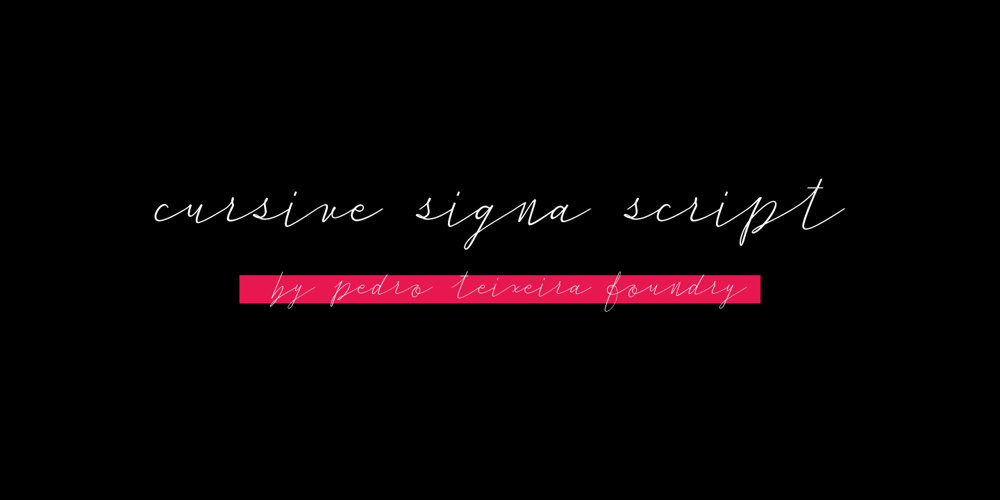
Cursive Signa Script Font Family was designed by Pedro Teixeira and published by Pedro Teixeira. Cursive Signa Script contains 30 styles and family package options. One of the rare, huge script, true cursive and signature family. It has 30 styles, that range between weight and slant, and with alternates.It can be use in a lot of projects, like logos, end of a statement, pairing with a beautiful sans serif like Aleante, in a title, invites and so on.Check how it work:https://youtu.be/HinnXZo5tzw